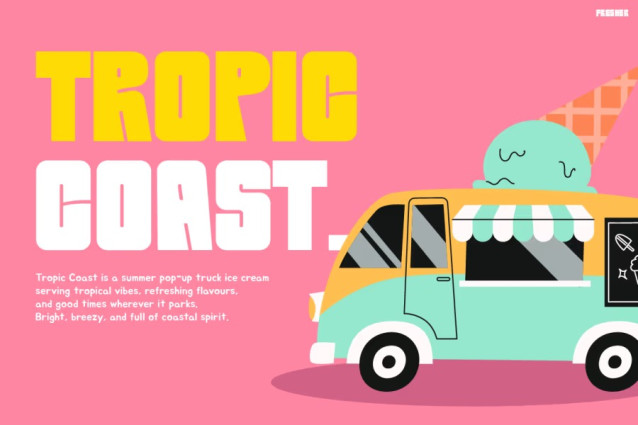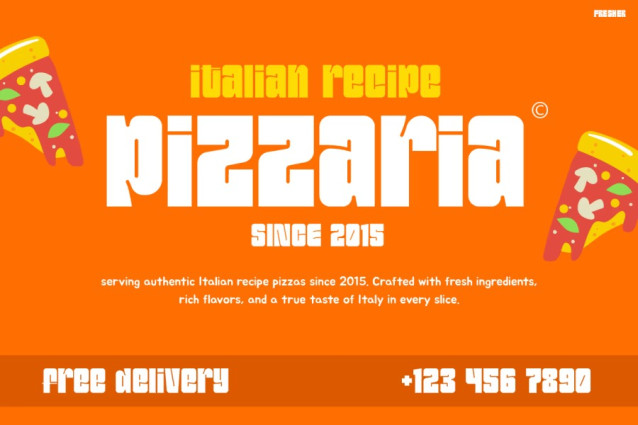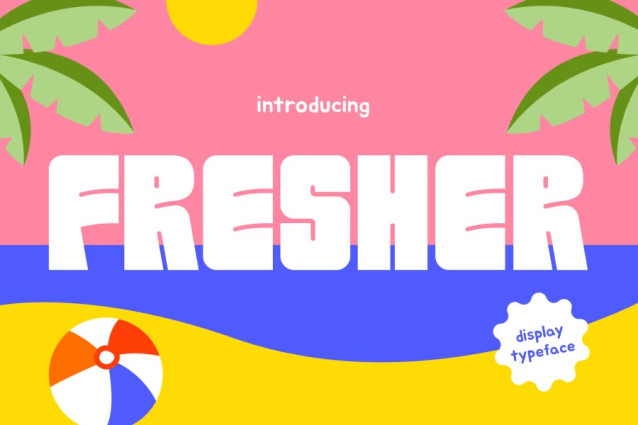
Fresher Font
Fresher Font is a vibrant and youthful typeface that radiates pure summer energy. Its bold, bubbly curves and soft geometric edges make it instantly recognizable and irresistibly fun. Moreover, its clean lines and rhythmic shapes bring a modern, refreshing feel to every design. Designed to capture attention and convey happiness, FRESHER delivers the perfect balance between cheerful playfulness and professional clarity.
What truly sets Instagram Font FRESHER apart is its dynamic personality. It feels both bold and approachable, making it a fantastic choice for projects that demand a fun yet modern touch. Each letter flows smoothly, ensuring a natural rhythm across your designs. Therefore, it’s not just a typeface; it’s an expressive visual experience that turns text into vibrant storytelling.
Instagram Font FRESHER works beautifully in any creative project that needs a splash of energy and positivity. You can use it for summer campaigns, tropical branding, or beach event posters. Additionally, it shines in food packaging, lifestyle advertisements, and fashion promotions. Because of its bold legibility and friendly tone, it performs well both in large headlines and mid-size display text.
Who It’s For
This font is perfect for designers who enjoy mixing creativity with clarity. It suits content creators, lifestyle influencers, kids’ product designers, and café owners who want to infuse their brand with joy. Furthermore, marketing agencies can use it to develop lively, youth-oriented campaigns that instantly grab attention. With its easy readability and striking personality, it’s a must-have for anyone looking to create designs that feel modern and full of life.
Why You’ll Love It